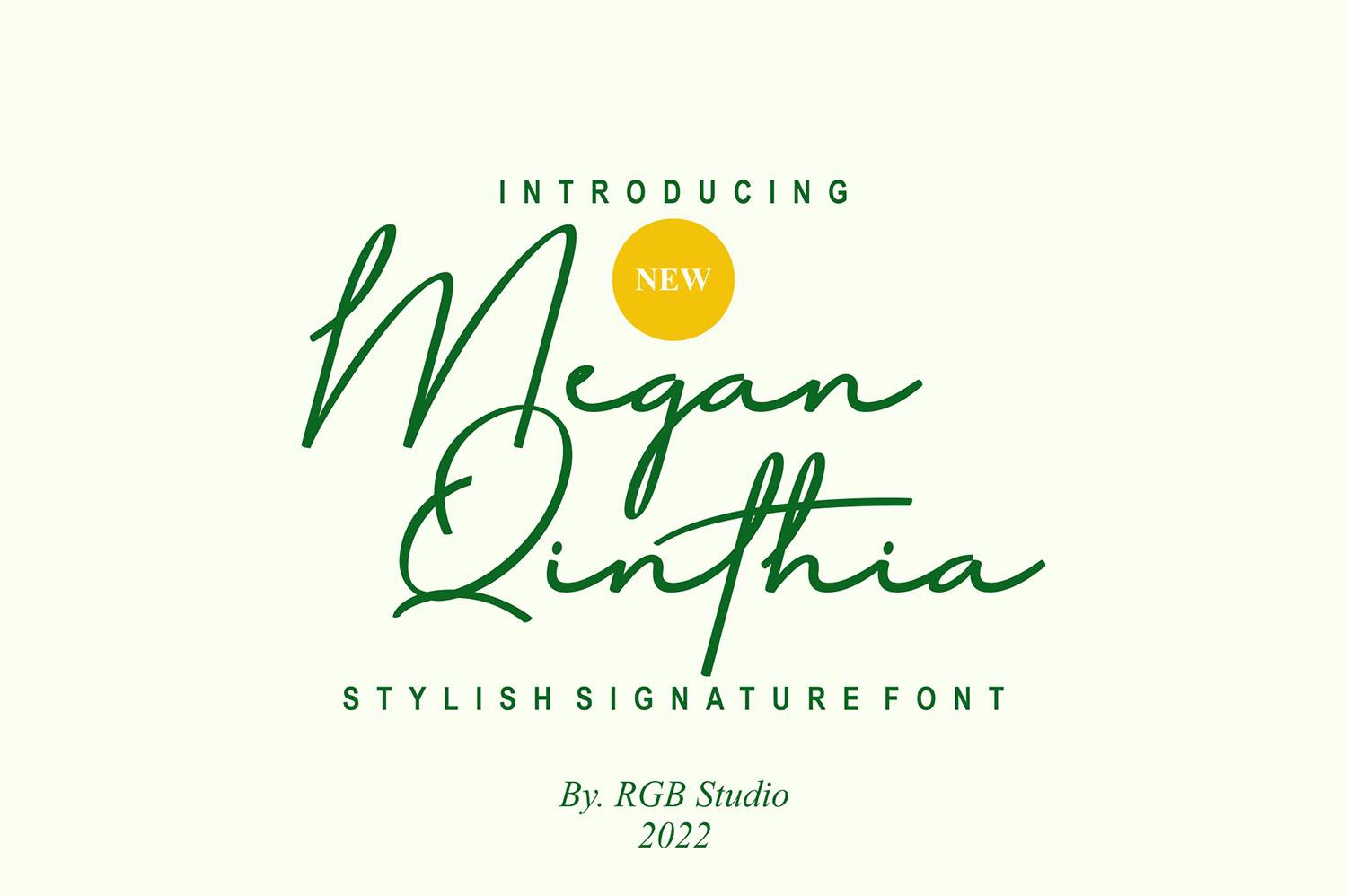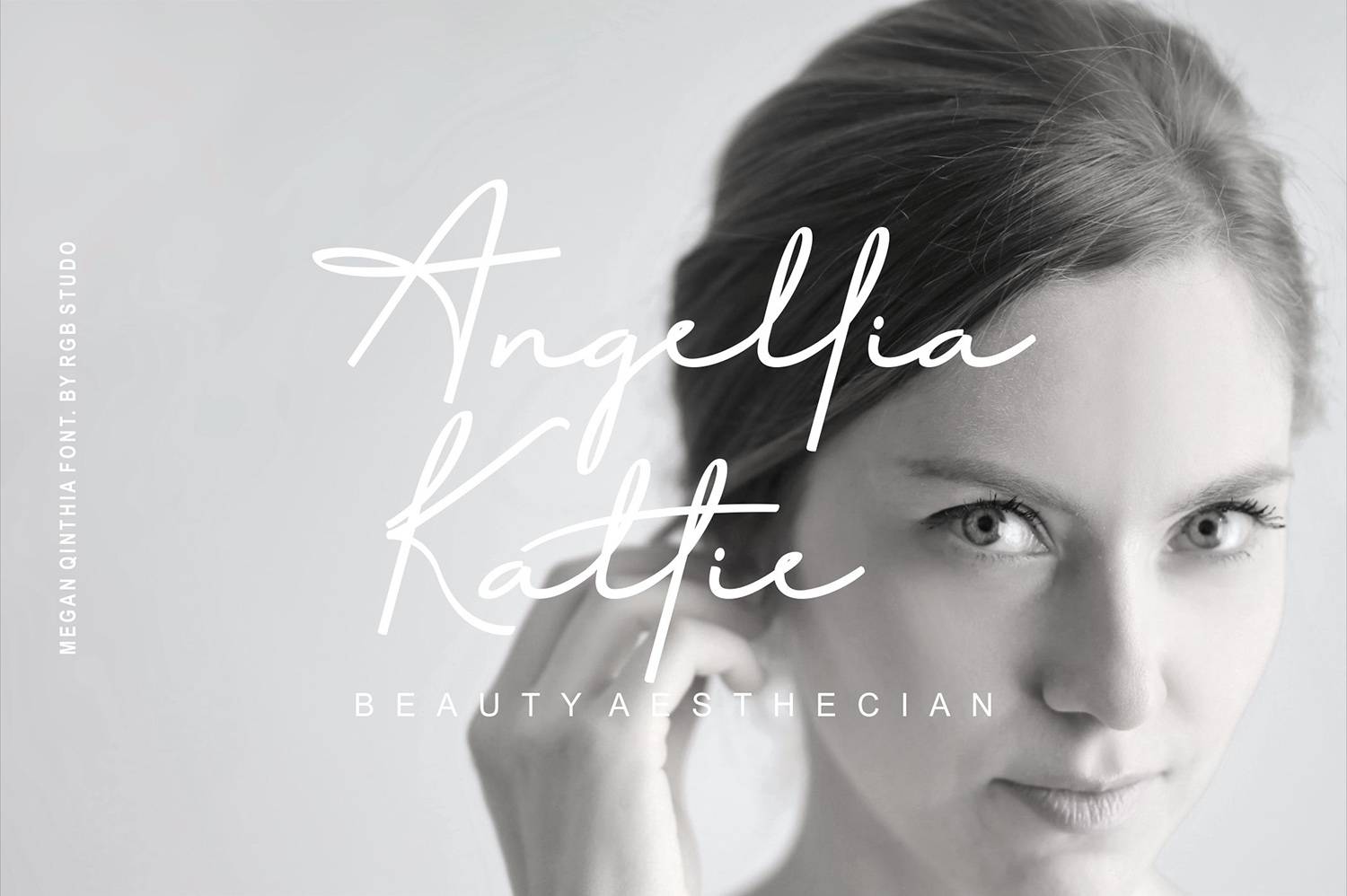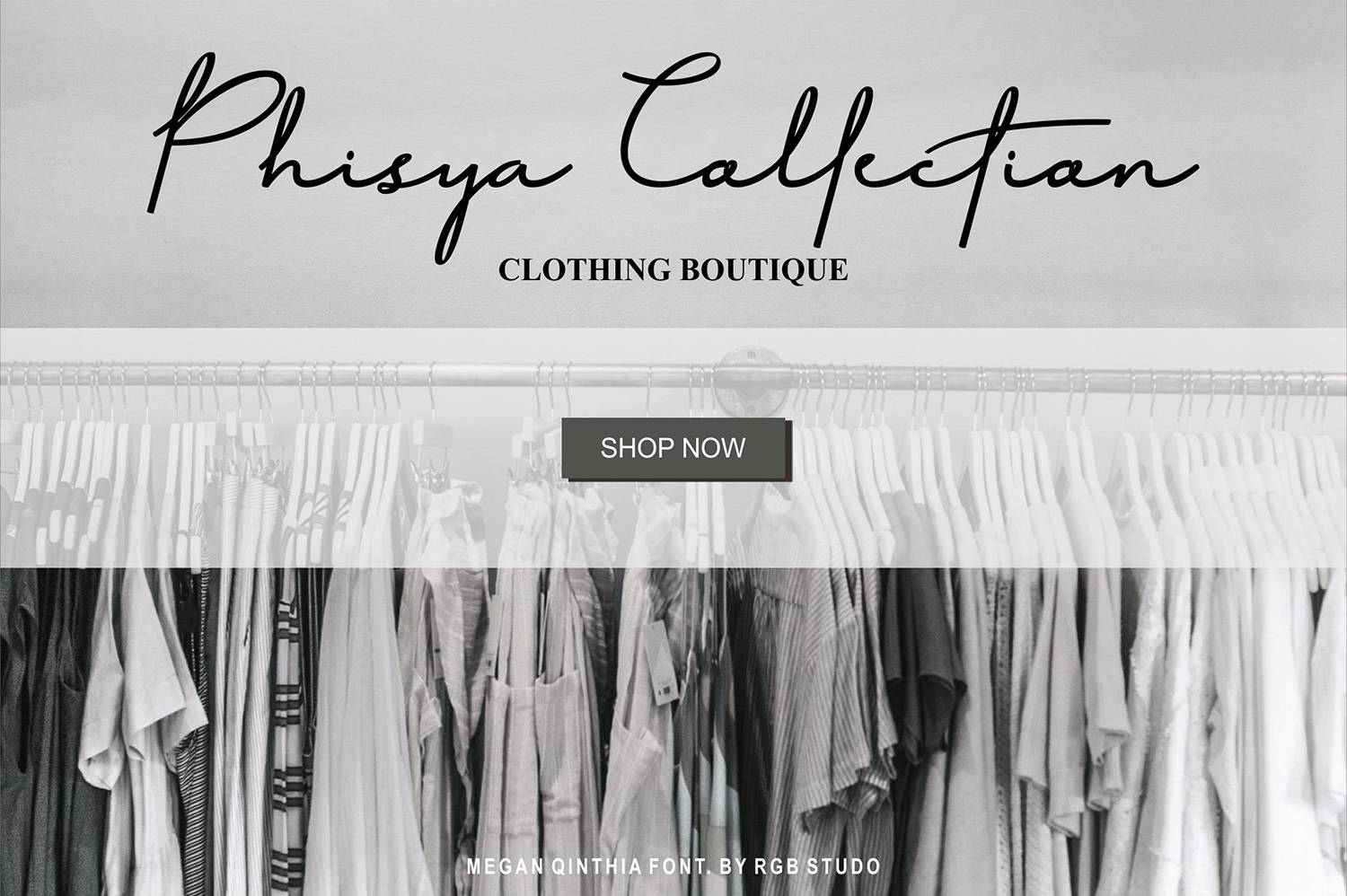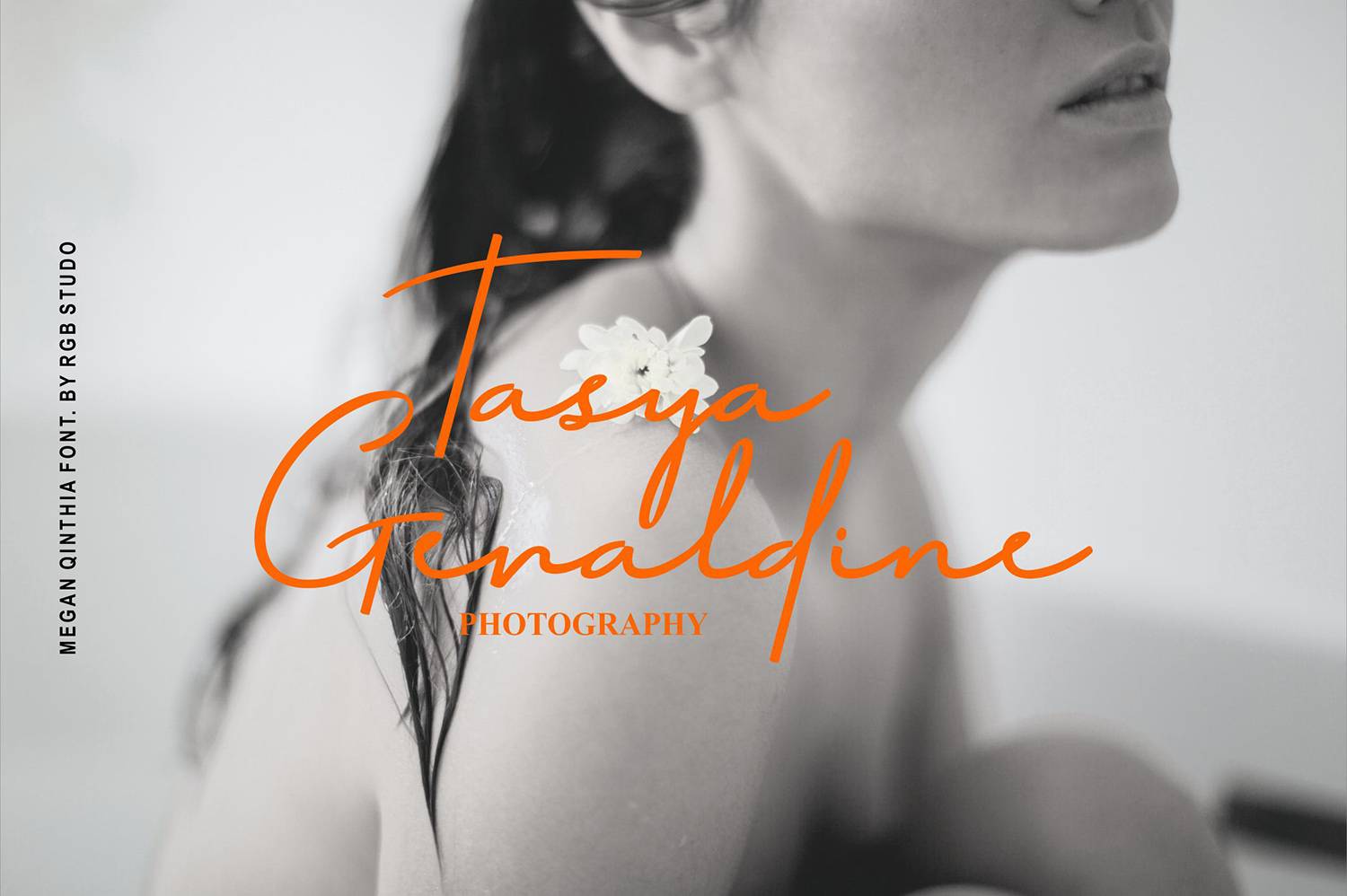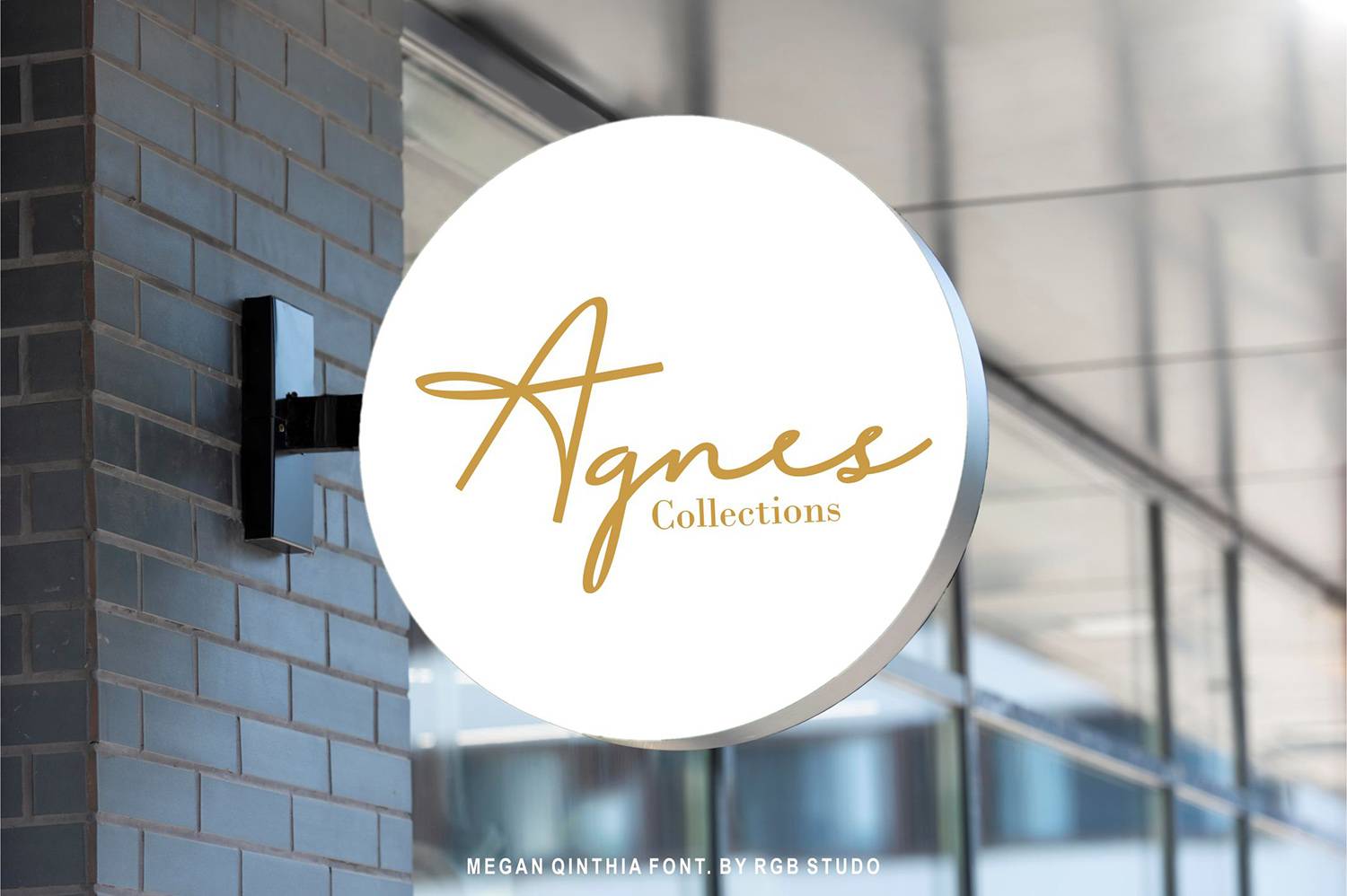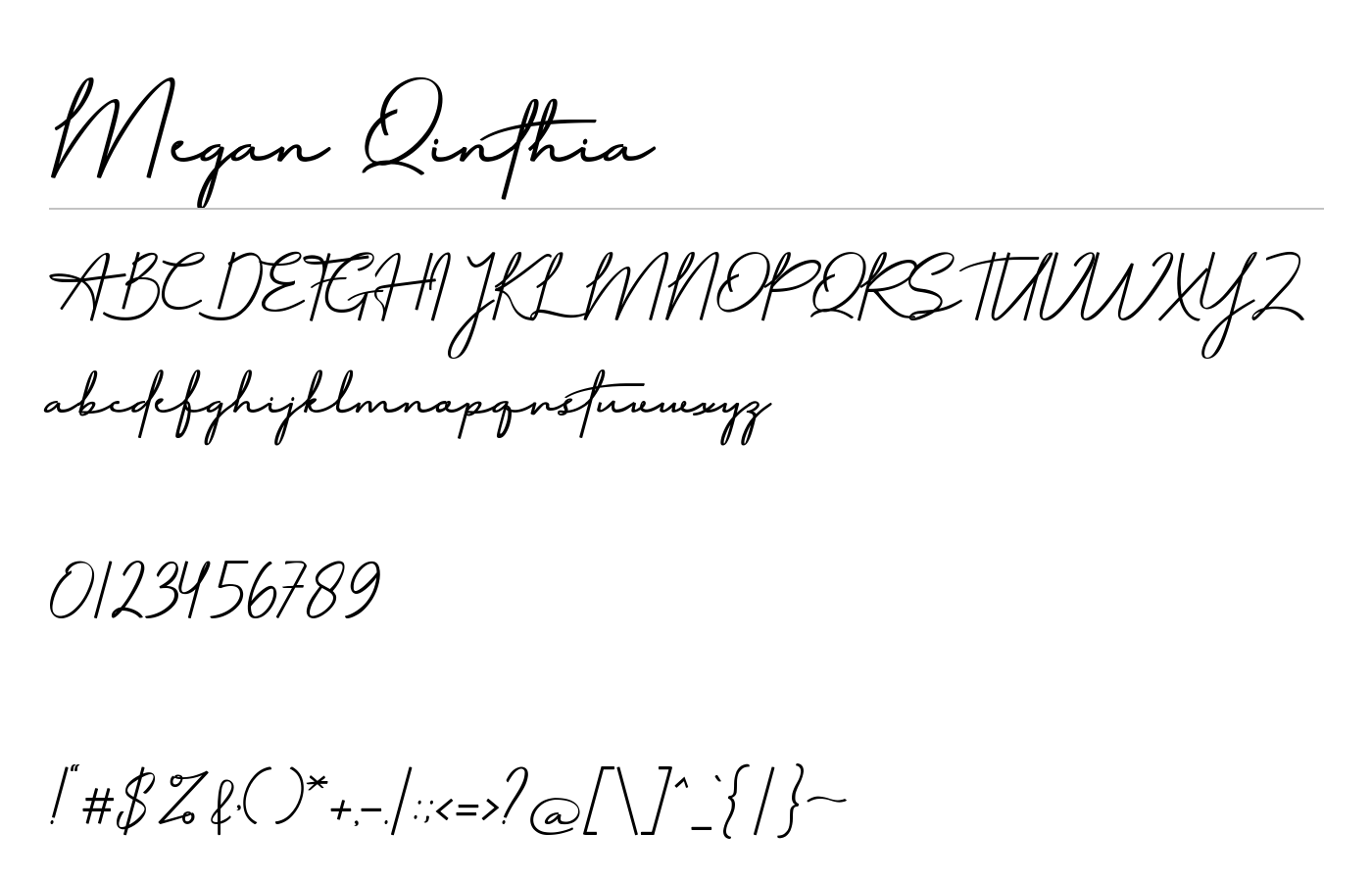
Megan Qinthia is a delicate, elegant script font that mimics natural handwriting with smooth, slender strokes and a flowing, airy feel. Its thin, slightly slanted letterforms bring a personal, refined touch, making it ideal for invitations, branding, and stylish editorial projects where a graceful, modern handwritten look is desired. This font works beautifully for designs aiming to convey sophistication and warmth with a contemporary edge.
Megan Qinthia Font